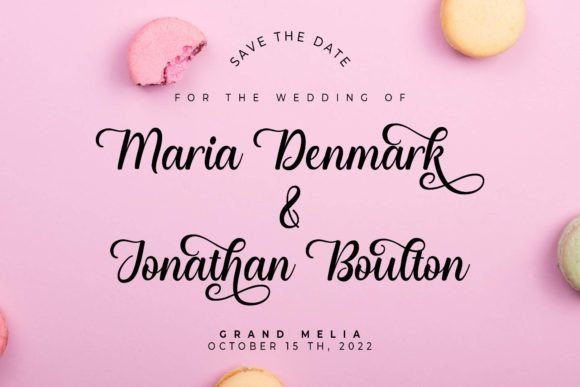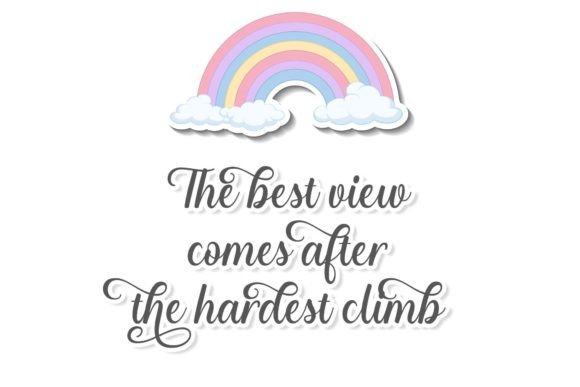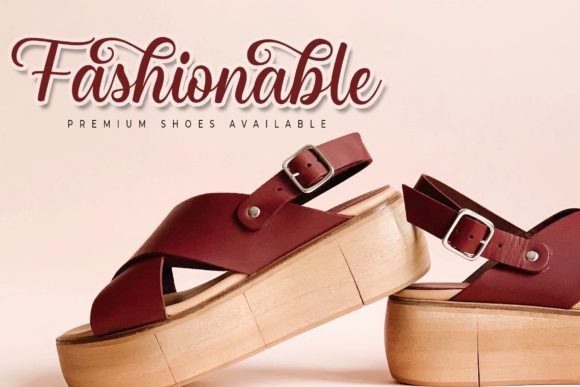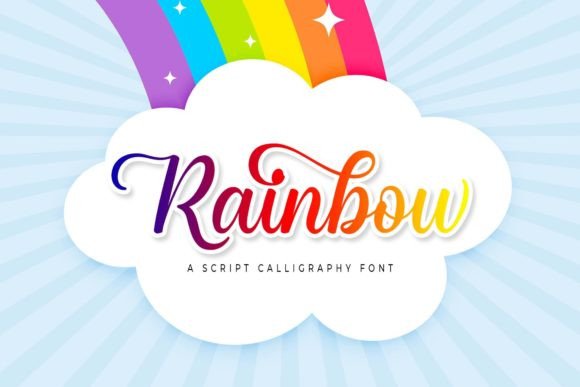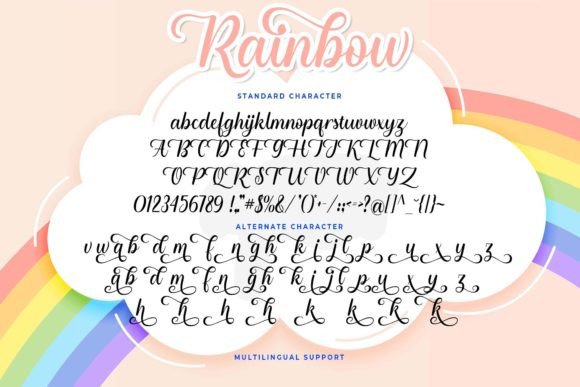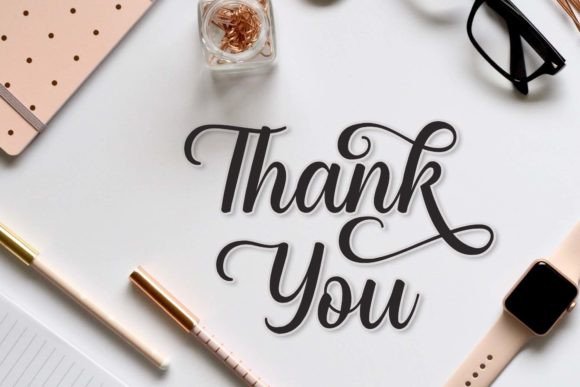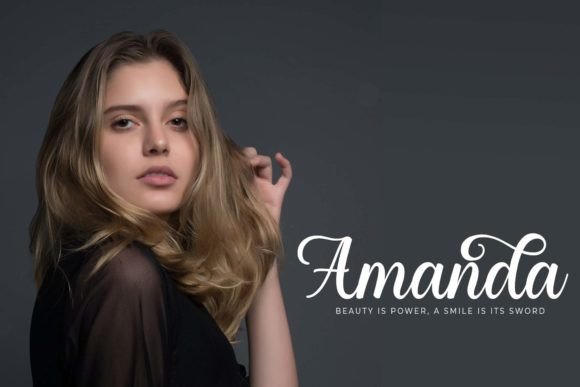
Rainbow Font
About Rainbow Font Download
The Rainbow Font Download is a beautiful and charming script typeface designed to bring a dreamy and elegant touch to your projects. With its swirly end lines, graceful curves, and lowercase alternates, Rainbow is a versatile handwritten font that blends playfulness with sophistication. Whether you are designing invitations, logos, or digital graphics, Rainbow ensures your work feels stylish and unique.
A Beautiful and Charming Script Typeface
The Rainbow script font features smooth handwritten strokes combined with decorative alternates. As a result, it feels romantic yet professional. Furthermore, its swirly details make it adaptable for many design themes, from dreamy crafts to polished branding projects.
Handwritten fonts add warmth and personality to stationery. The Rainbow Font is ideal for wedding invitations, thank you cards, holiday notes, and seasonal greetings. Because of its graceful flow and swirly endings, each design feels polished and personal. In addition, it helps your stationery stand out with charm and elegance.
Branding and Logo Design with Rainbow Font
Typography influences the way a brand is perceived. The Rainbow handwritten font is an excellent choice for boutique logos, packaging, and creative branding projects. Its stylish handwritten strokes make businesses appear approachable while maintaining professionalism. Therefore, it works especially well for lifestyle, fashion, and creative industries.
Posters, Quotes, and Editorial Projects
The Rainbow Font Download also shines in posters, book covers, magazines, and inspirational quotes. Its stylish alternates and decorative swashes add character while keeping the text legible. Consequently, it is an excellent choice for designers seeking a unique handwritten typeface with personality.
In today’s digital era, fonts must perform well across multiple platforms. The Rainbow typeface integrates seamlessly into Instagram graphics, Pinterest posts, YouTube thumbnails, and blog headers. Because of its charming handwritten curves, it makes digital projects engaging and visually appealing.
Why Designers Choose Rainbow Typeface
Designers prefer fonts that balance creativity with usability. The Rainbow handwritten script offers elegance while remaining versatile. Moreover, its extra swirly alternates and PUA encoding give designers full control over customization.
Add Dreamy Elegance to Your Projects Today
If you want a handwritten script that feels beautiful, stylish, and versatile, the Rainbow Font Download is the perfect choice. From invitations and greeting cards to branding, posters, and digital content, it enriches every project with charm and elegance. Finally, download Rainbow today and bring dreamy handwritten beauty to your creative work.